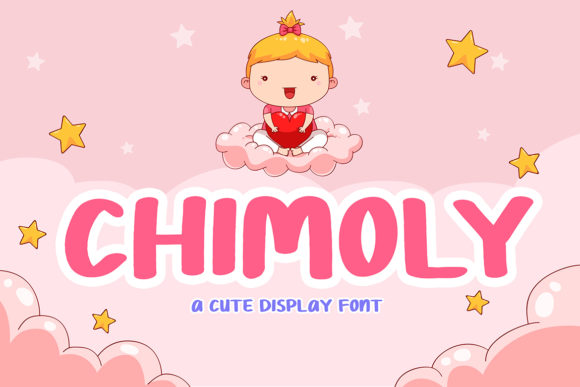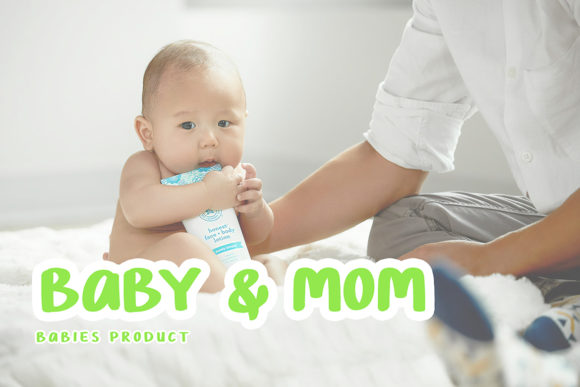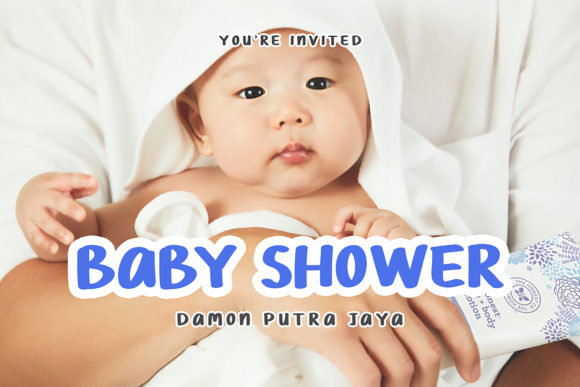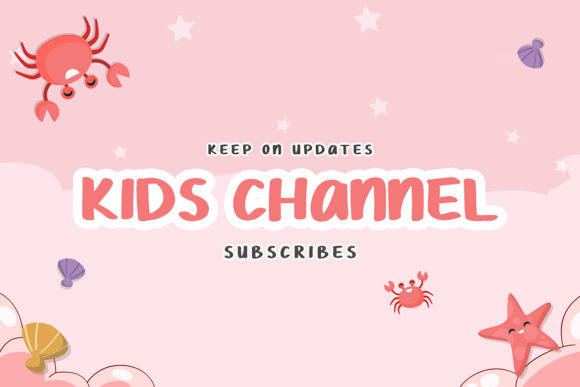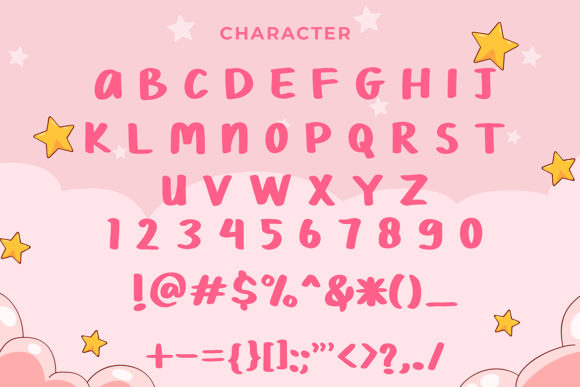
HomeSans Serif FontsChimoly Font Sans Serif Fonts Chimoly Font FacebookTwitterPinterestWhatsApp Chimoly Font 1 of 6 About Chimoly Font Chimoly is a cute and whimsical sans serif font, ideal for adding that playful and sweet feel to your next design idea. DOWNLOAD NOW People also explored Palmera Jamilah Script Font Charles Brown Font Carambola Playground Font Alphabetha Font Niffica Font Ceci Font Nickainley 216 0 TagsChimolyChimoly Font Previous articleBonita FontNext articleLittle Monster Font LEAVE A REPLY Cancel reply Comment: Please enter your comment! Name:* Please enter your name here Email:* You have entered an incorrect email address! Please enter your email address here Website: Save my name, email, and website in this browser for the next time I comment. Personal Use Free Mama Personal Use Free Read more about this font Awesome Snowflakes Font Personal Use Free Read more about this font Hair Thinned Personal Use Free Read more about this font Alligator Font Personal Use Free Read more about this font BLOG Free vs Paid Fonts: Why Investing in Premium Fonts Is Worth It Free vs Paid Fonts: Why Premium Fonts Are Worth It in 2025 The debate of free vs paid fonts continues in the design world. While... Elegant Wedding Invitation Fonts – Handwritten & Script Fonts To increase your work productivity, choose the most readable fonts. Top 7 Google Fonts Alternatives for Faster and Privacy-Friendly Web Design (2025)